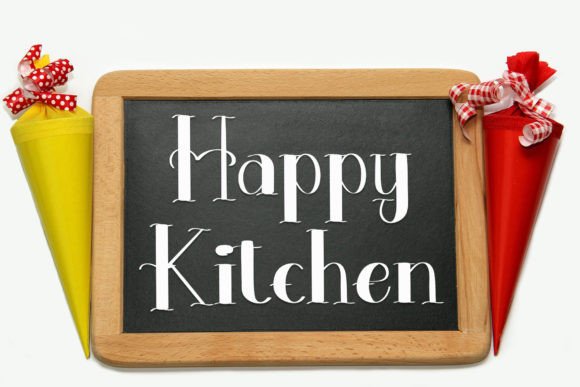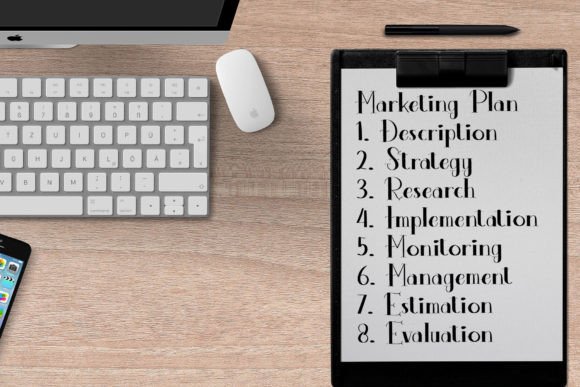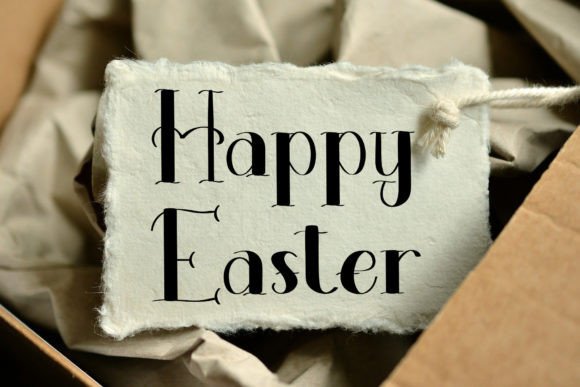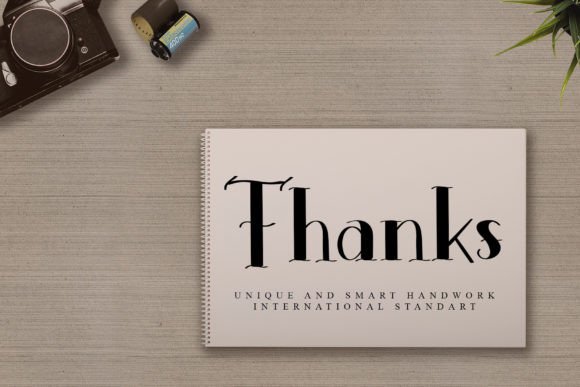
Duck Font: The Perfect Addition to Your Crafty Projects
Are you a designer or crafter looking for a unique and playful font to add to your projects? Look no further than the Duck Font! This neat and casual handwritten display font is sure to bring a touch of whimsy and personality to your designs. In this article, we’ll dive into the features and benefits of the Duck Font, and explore how you can use it to take your crafty projects to the next level.
What is Duck Font?
Duck Font is a handwritten display font that is characterized by its casual and carefree feel. The font features bold, playful lines and a charming personality that is sure to capture the attention of your audience. With its unique and quirky style, Duck Font is perfect for adding a touch of humor and whimsy to your designs.
Features of Duck Font
So, what makes Duck Font so special? Here are just a few of its key features:
- Handwritten style: Duck Font is a handwritten font, which gives it a personal and unique feel.
- Bold and playful lines: The font features bold, playful lines that add to its whimsical personality.
- Easy to read: Despite its playful style, Duck Font is easy to read and understand, making it perfect for use in a variety of projects.
- Versatile: Duck Font can be used in a wide range of projects, from crafty designs to digital marketing materials.
Benefits of Using Duck Font
So, why should you choose Duck Font for your crafty projects? Here are just a few of the benefits of using this unique font:
- Adds personality to your designs: Duck Font is a great way to add a touch of personality and whimsy to your designs.
- Perfect for crafty projects: The font is specifically designed for use in crafty projects, making it a great choice for designers and crafters.
- High-quality: The font is high-quality and comes with a range of features, including multiple weights and styles.
How to Use Duck Font in Your Crafty Projects
So, how can you use Duck Font in your crafty projects? Here are a few ideas to get you started:
- Invitations and greeting cards: Duck Font is perfect for use in invitations and greeting cards, adding a touch of personality and whimsy to your designs.
- Crafting tutorials: Use Duck Font to add a playful touch to your crafting tutorials and instructions.
- Digital marketing materials: The font can also be used in digital marketing materials, such as social media graphics and blog posts.
- Signs and banners: Duck Font is a great choice for signs and banners, adding a bold and playful touch to your designs.
Tips for Getting the Most Out of Duck Font
Here are a few tips for getting the most out of Duck Font:
- Experiment with different colors: Duck Font looks great in a range of colors, so don’t be afraid to experiment and find the perfect hue for your design.
- Pair with other fonts: The font pairs well with other fonts, so try combining it with other styles to create a unique look.
- Use it sparingly: While Duck Font is a great font, it’s best used sparingly to avoid overwhelming your design.
In conclusion, Duck Font is a unique and playful font that is perfect for adding a touch of personality and whimsy to your crafty projects. With its bold, playful lines and easy-to-read style, it’s a great choice for designers and crafters looking to create eye-catching designs. So why not give Duck Font a try and see the difference it can make in your next project?